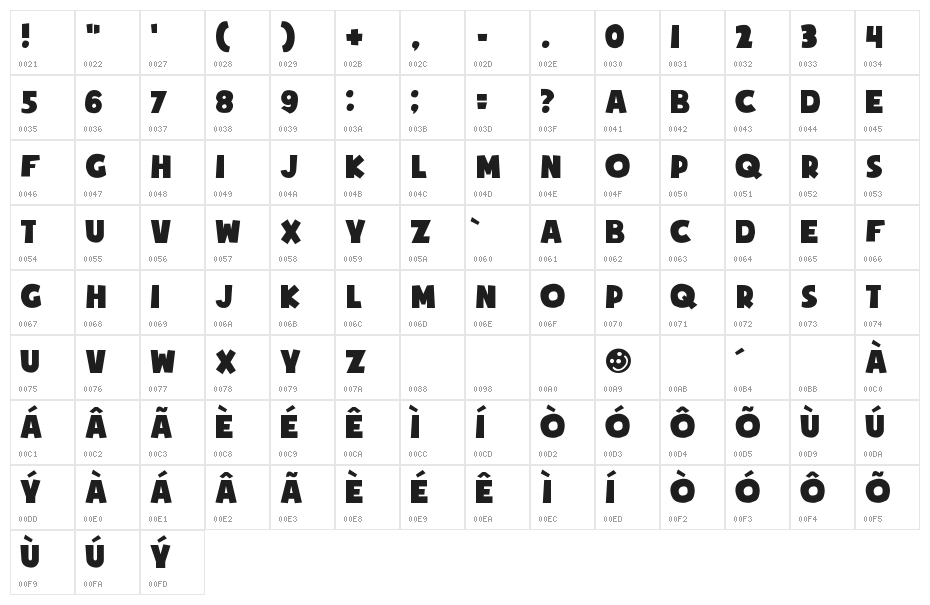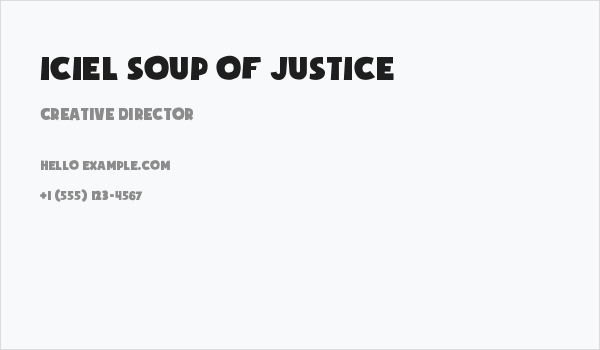
iCiel Soup of Justice Font
iCiel Soup of Justice Description
This font features bold, playful characters with a distinctly chunky and rounded appearance. The uppercase letters are robust and slightly irregular, giving a whimsical and informal feel. The numbers and special characters maintain this playful style, making them ideal for attention-grabbing designs. The font's thick strokes and lack of serifs contribute to its bold and impactful presence, suitable for designs that require a fun and energetic vibe. The character spacing is tight, enhancing the boldness and making it perfect for short, impactful text.
| Overall Style | Playful, Energetic |
| Proposed Projects | Perfect for children's books, playful branding, posters, and comic-style graphics. |